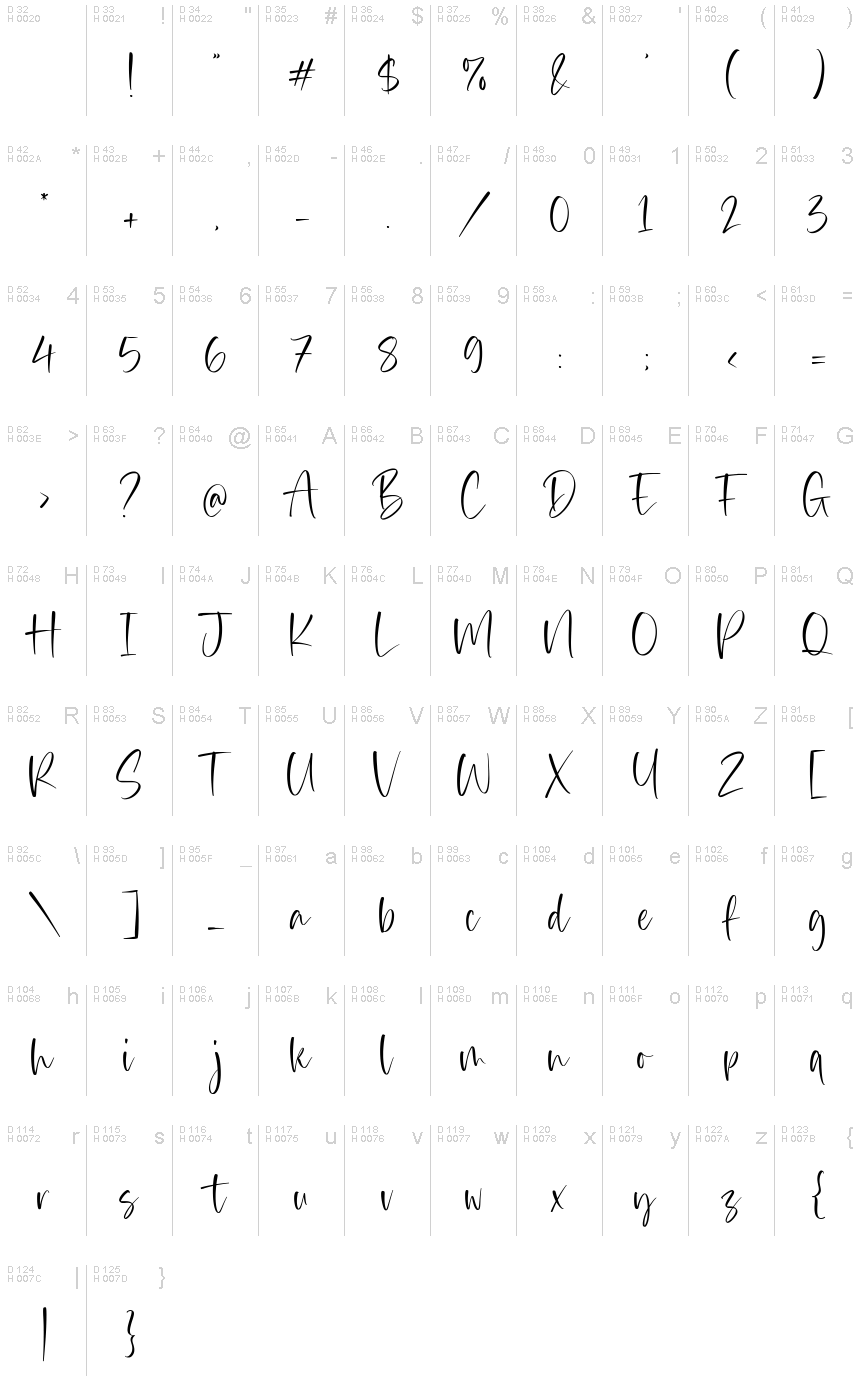
Jameson Achilles
Jameson Achilles font by Balpirick Studio captures the charm of genuine handwriting with its fluid curves and personal touch. This handwritten style exudes warmth and sophistication, making it a perfect choice for projects requiring a human connection, like invitations, branding, or personal journaling.
With its distinctively flowing letters, Jameson Achilles stands out as both elegant and approachable. The font brings a personalized feel to any design context, whether you're creating captivating logos or enchanting social media graphics.
Explore the versatility of this free font download to add an authentic handwritten flair to your designs. Perfectly suited for those seeking creativity and uniqueness in typography, Jameson Achilles is your go-to choice for compelling and stylish visual content.